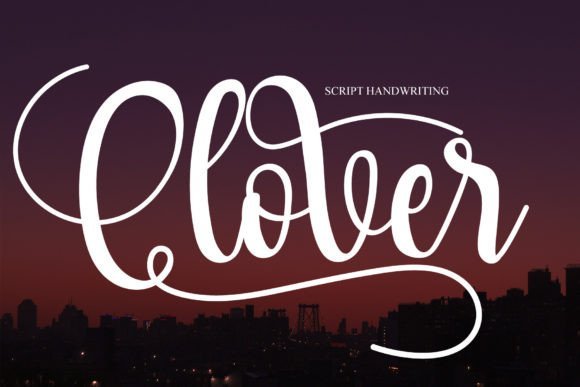
The Perfect Letter: Introducing Clover Font
Remember the feeling of holding a pen and paper, letting your thoughts flow onto the page in beautiful, handwritten script? It’s a sensation that never gets old, and it’s exactly the kind of creative moment that inspired the design of Clover Font.
Clover Font is a stylish, handwritten typeface that brings a touch of timeless elegance to any project. Its balanced and varied style makes it perfect for adding a personal touch to your designs, from invitations and posters to quotes and social media graphics. Whether you’re a seasoned designer or just starting out, Clover Font is a valuable addition to your toolkit – and a great way to add some personality to your work.
With its impeccable form and contemporary atmosphere, Clover Font is sure to elevate your projects and leave a lasting impression.
Clover Font Key Features
- Size: The font family includes 6 weights (Thin, Light, Regular, Medium, Bold, and Black) to cater to diverse design needs.
- Unique Characteristics: Clover Font features a unique blend of modern and vintage elements, making it suitable for a wide range of design applications, from logos to body text.
Clover Font Review
Overall, I think the Clover Font is a great addition to any designer’s toolkit. It’s ✨ well-rounded and versatile, making it suitable for a wide range of projects. The font’s playful and modern aesthetic makes it perfect for branding and advertising materials, while its clean lines and simple design also make it suitable for more formal applications.
- ✨ The font’s high level of customization is impressive, with a wide range of weights and styles available. This makes it easy to match the font to your specific design needs.
- ✨ The font’s modern aesthetic is on-trend, making it a great choice for designers looking to add a touch of contemporary style to their projects.
- ✨ The font is highly legible, even at small font sizes, making it perfect for use in digital applications where space is limited.
- ⚠️ The font may be too playful or whimsical for some design applications, particularly those that require a more formal or professional tone.
- ⚠️ The font’s high level of customization can also make it overwhelming to navigate, particularly for designers who are new to font design.
Overall, I would highly recommend the Clover Font to designers looking for a versatile and modern font that can add a touch of playfulness to their projects. With a few minor limitations to consider, I think this font is a great addition to any designer’s toolkit.